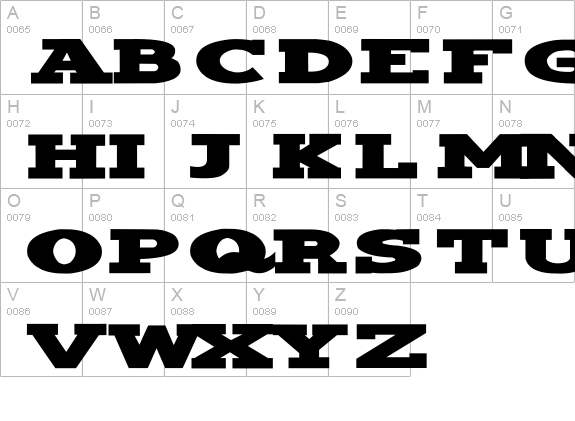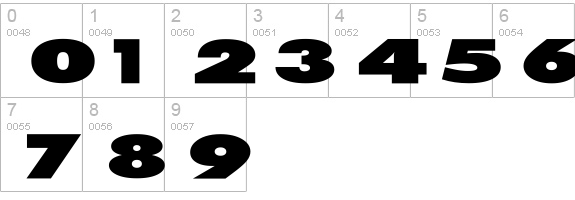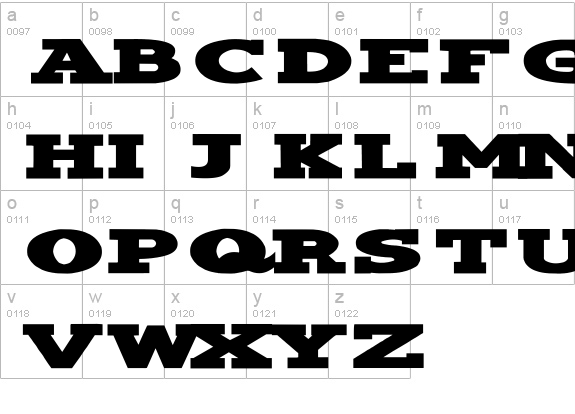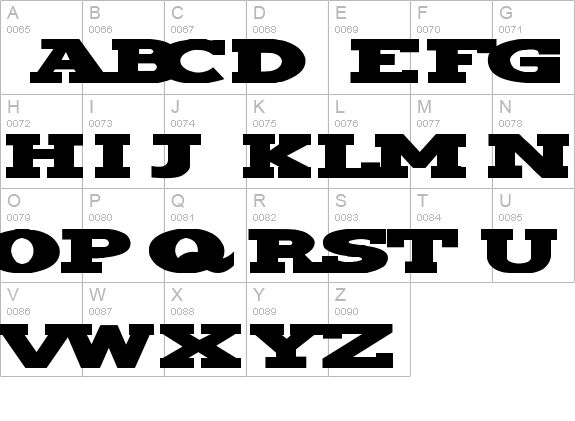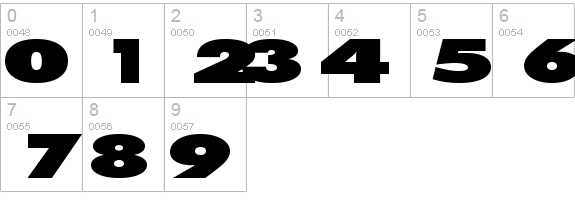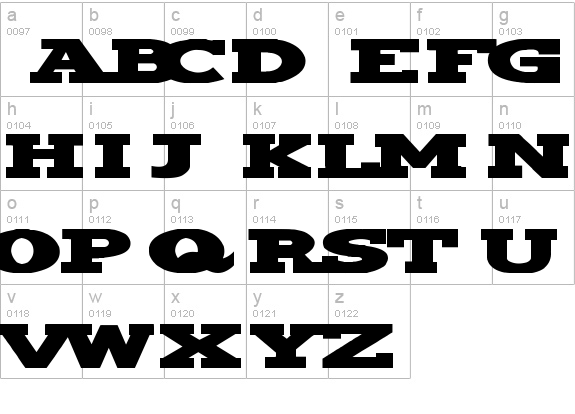
Millhouse Font Details
Millhouse font is a beautifully crafted typeface that exudes elegance and sophistication. Its clean lines and unique design make it perfect for a wide range of projects, from branding to editorial design. The font features a wide range of characters, including uppercase and lowercase letters, numbers, and punctuation marks, allowing for versatile and creative typography. What sets Millhouse font apart is not only its aesthetic appeal but also its accessibility. This font is available for free download at FontsMarket.com, making it easily accessible to designers and creatives looking to elevate their projects with a touch of class and style. Whether you're working on a logo, a poster, or a website, Millhouse font is sure to make a statement and leave a lasting impression on your audience.